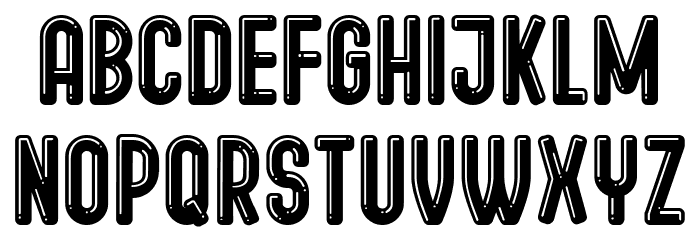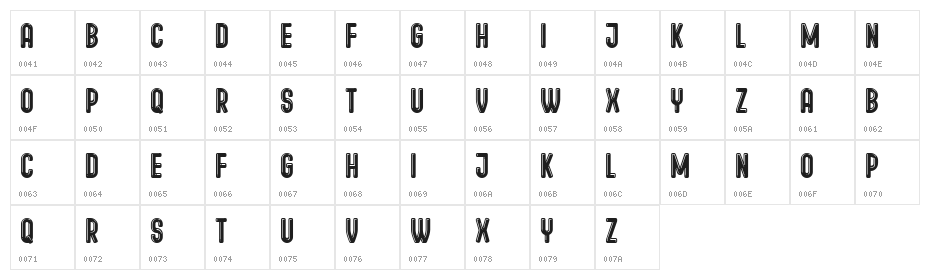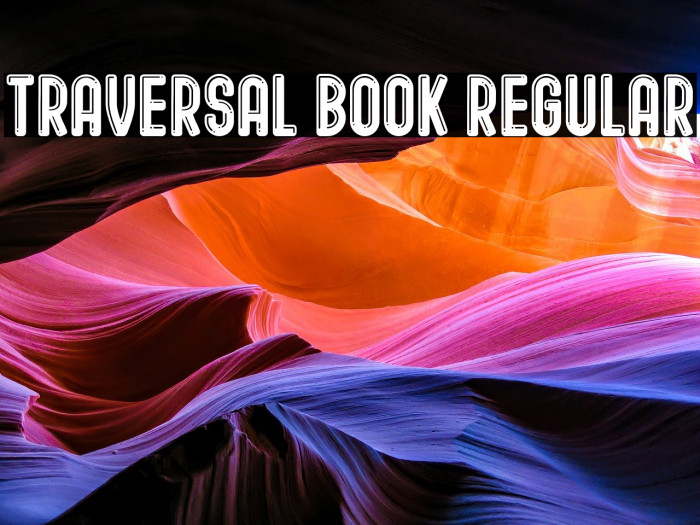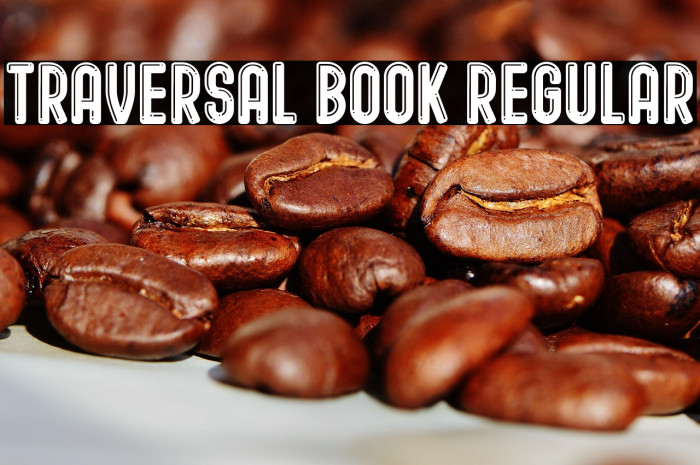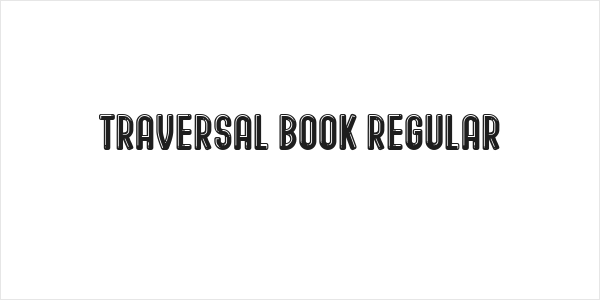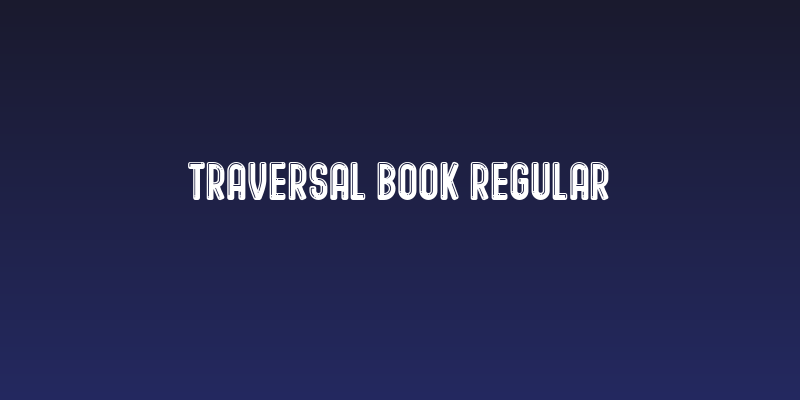
Traversal Book Regular Font
Traversal Book Regular Description
This font features a bold, decorative style with a unique double-line effect that creates a sense of depth and dimension. The uppercase letters are uniform in height and width, giving a balanced and structured appearance. The strokes are consistent in thickness, with rounded edges that soften the overall look. The font's design is both modern and playful, making it suitable for a variety of creative applications. The spacing between characters is tight, enhancing the compact and cohesive feel of the text. This font is ideal for projects that require a strong visual impact, such as posters, headlines, and branding materials.
| Proposed Projects | Ideal for posters, headlines, branding, and any design needing a bold, modern touch. |